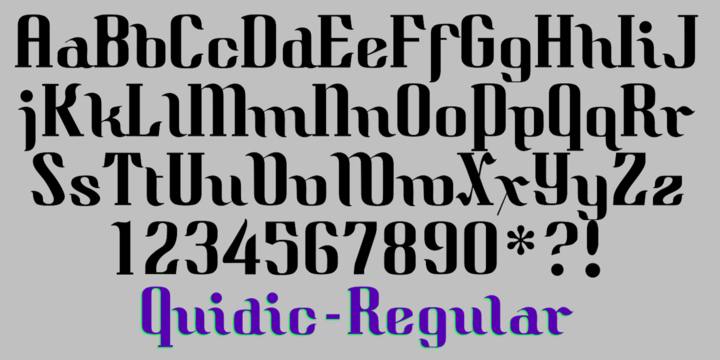
Quidic
Design Credits
Designed by: Robert Schenk
Designed when: 1992
Quidic
I do not remember where I got the idea for Quidic. Its letters are strongly vertical, and the italic is very unusual because it is not the lower-case letters which have shapes different from the plain style, but the upper-case letters and numbers. Some of the Bauhaus fonts have a couple of letter shapes vaguely similar, so perhaps they indirectly are the origin.